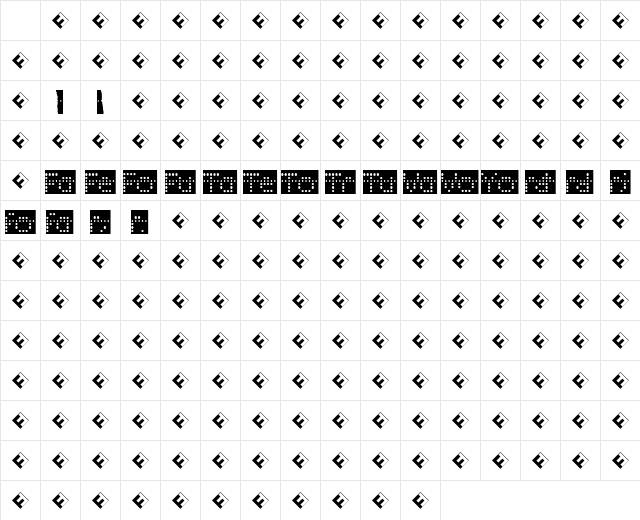
Complete Papertape Regular glyph index. Displaying only characters natively supported by Papertape Regular font.
Papertape is a composed and adaptable typeface that performs quietly and consistently across a wide range of design contexts.
Who designed the Papertape Regular font?
This font was published by Matthias Jordan, published by Fontshop International for the FontFont library. Check the technical specs section for copyright and designer details.